Halloween ABC fonts turn ordinary letters into pumpkins, ghosts, dripping slime, crooked bones, and other spooky characters. I use this category when the alphabet itself needs to carry the theme—not merely sit beside Halloween clipart. The right font can make a classroom banner, party sign, sticker sheet, or personalized treat bag feel finished before any extra decoration is added.
This collection covers several levels of fright, from cheerful ghost lettering for children’s crafts to rough horror styles suited to haunted-house posters. Most selections are installable fonts, so you can type names and phrases directly. I also considered letter shape, readability, cutting complexity, and how clearly each design communicates an A-to-Z alphabet theme.
The best Halloween ABC fonts combine recognizable letterforms with one memorable spooky detail. Halloween Alphabet is my pick for colorful children’s designs, Whitebone Monster suits skeleton lettering, and Monster Halloween delivers a bold dripping effect. For cutting machines, choose a simpler black or single-color version whenever one is included.
Best Halloween ABC Fonts
1. Halloween Alphabet
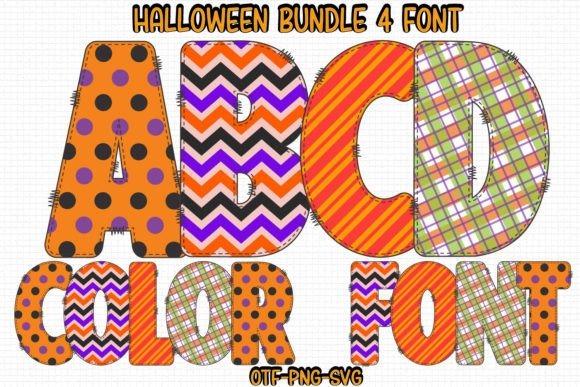
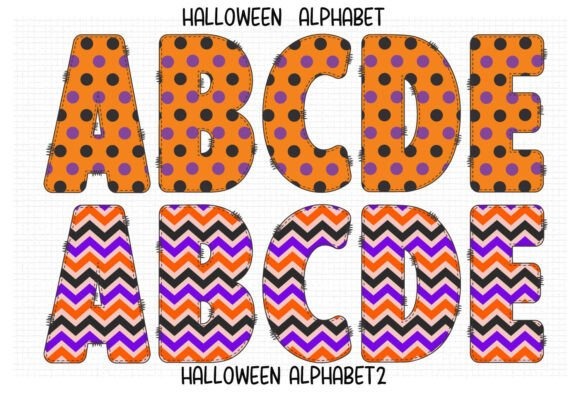
Halloween Alphabet is a detailed color font for playful ABC posters, school resources, party printables, and children’s seasonal designs. Its illustrated letters create a complete Halloween look without requiring separate decorative graphics around every character.
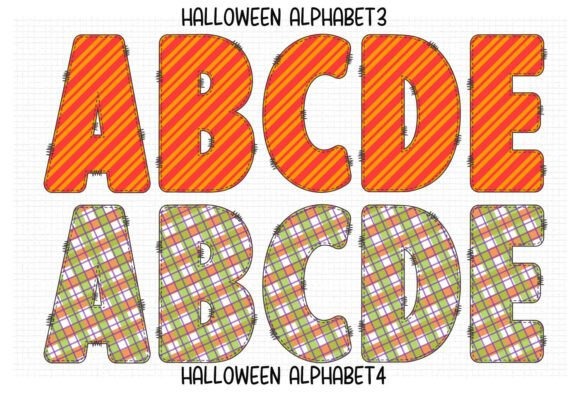
I like this one most for printable work where the colors and small details can remain intact. It may feel visually crowded in long sentences, so I would reserve it for names, alphabet cards, labels, and short headings rather than body copy.
2. Halloween
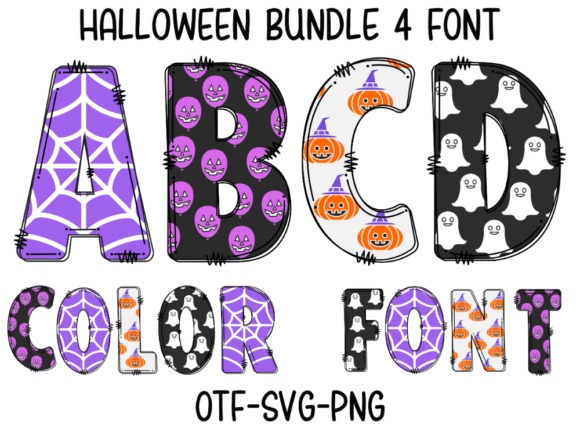
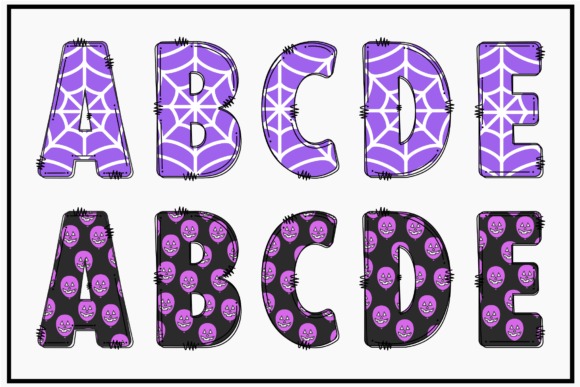
Halloween is a colorful illustrated font designed for posters, school projects, flyers, book covers, and other cheerful spooky-season graphics. The decorated alphabet gives each typed word the appearance of custom Halloween artwork.
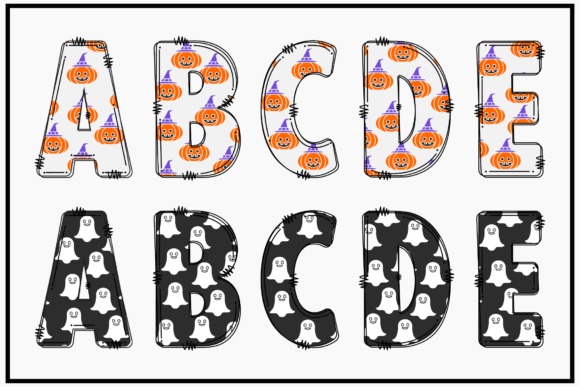
My favorite practical detail is the availability of a black version for Cricut Design Space and other cutting machines. The colored style suits printing and sublimation, while the simplified version offers a cleaner path for vinyl lettering and paper cuts.
3. Spooky Halloween
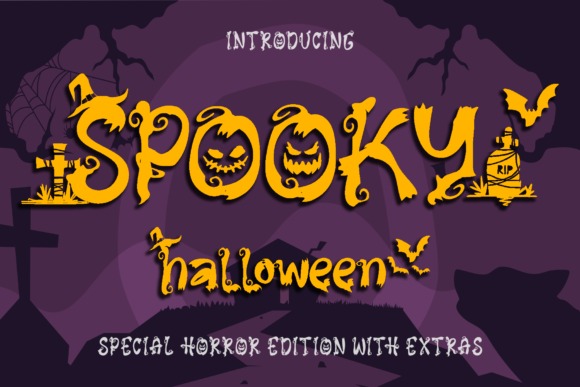
Spooky Halloween is a decorative typeface for October titles, party invitations, themed signs, and personalized seasonal crafts. Its cool, slightly scary character treatment adds atmosphere while keeping the alphabet recognizable.
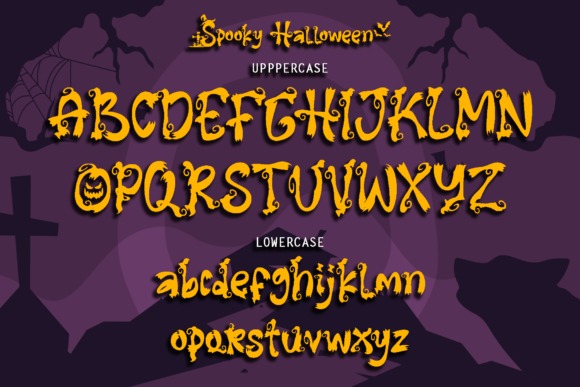
Should I choose a color font or a regular Halloween font?
Choose a color font for printable or digital artwork and a regular single-color font for vinyl, stencils, engraving, and uncomplicated paper cuts. Color fonts provide rich illustrated detail, while ordinary outline-based fonts offer more flexibility for recoloring, layering, and material production. A product that includes both color and black versions gives you the broadest range. You can maintain a coordinated alphabet across printed invitations, sublimated shirts, vinyl favor bags, and cardstock banners without searching for a second typeface.